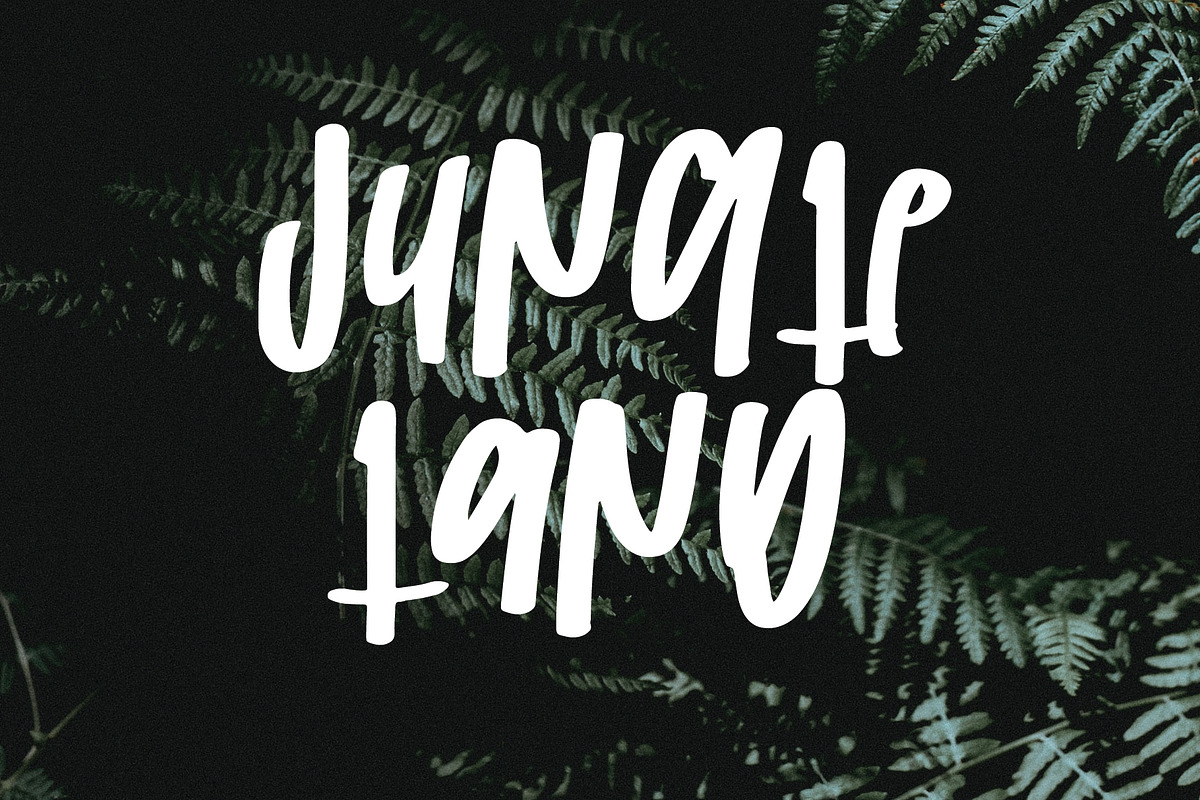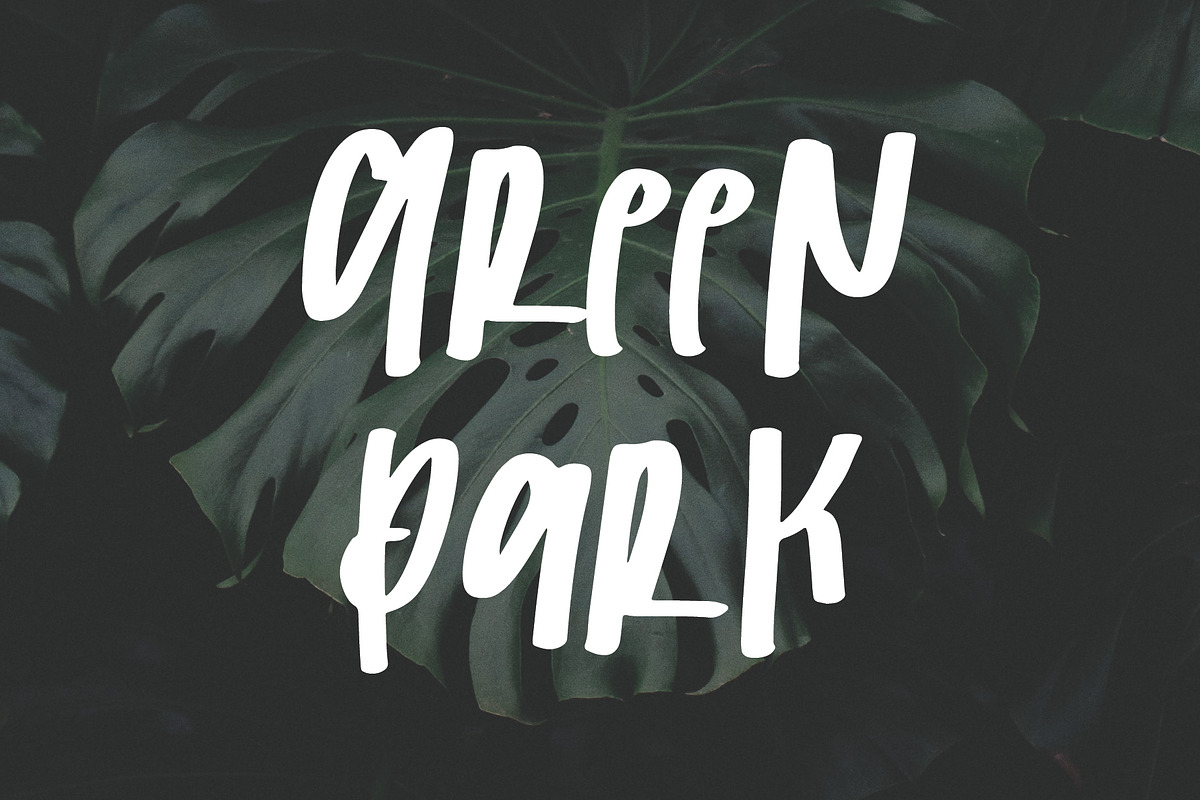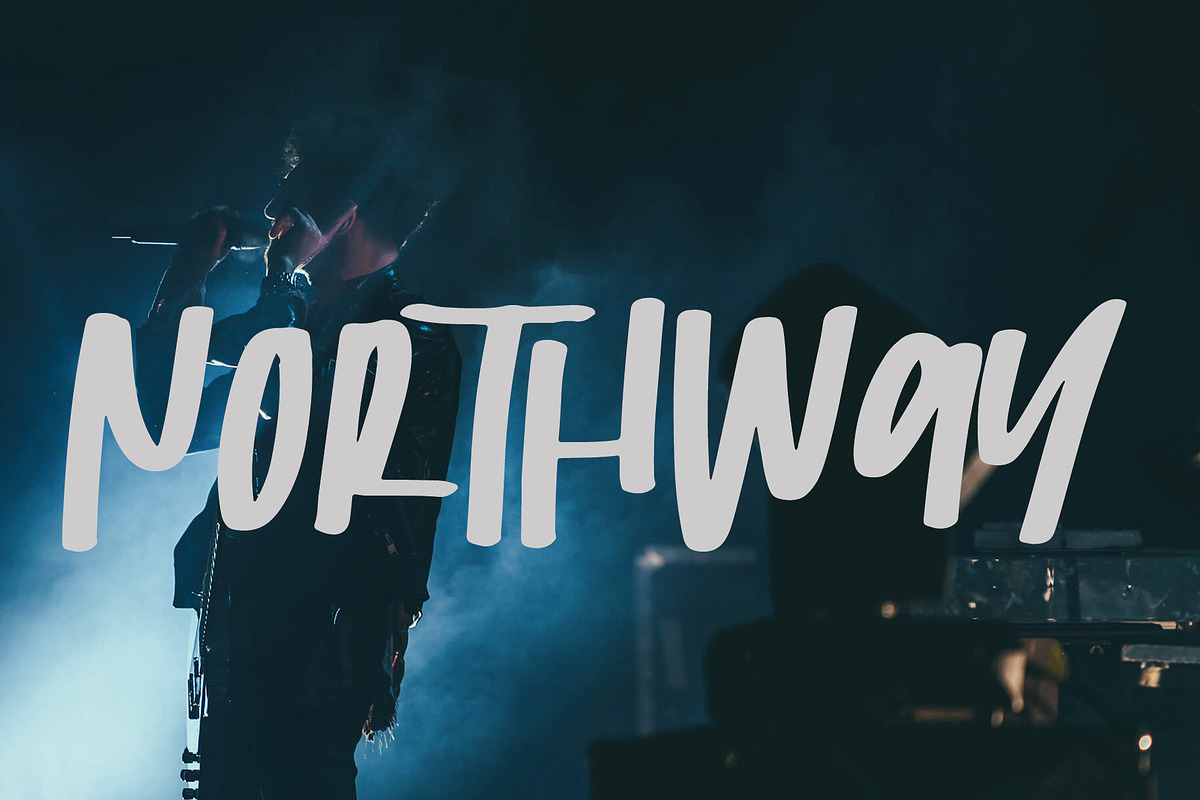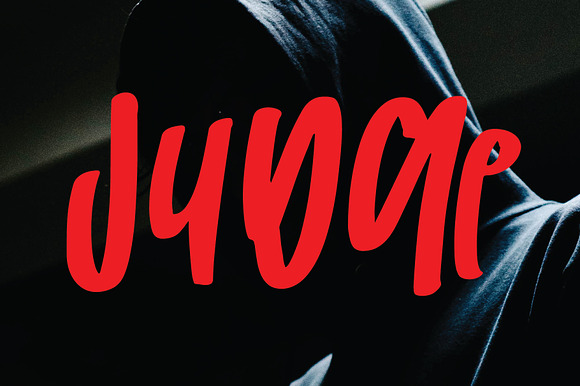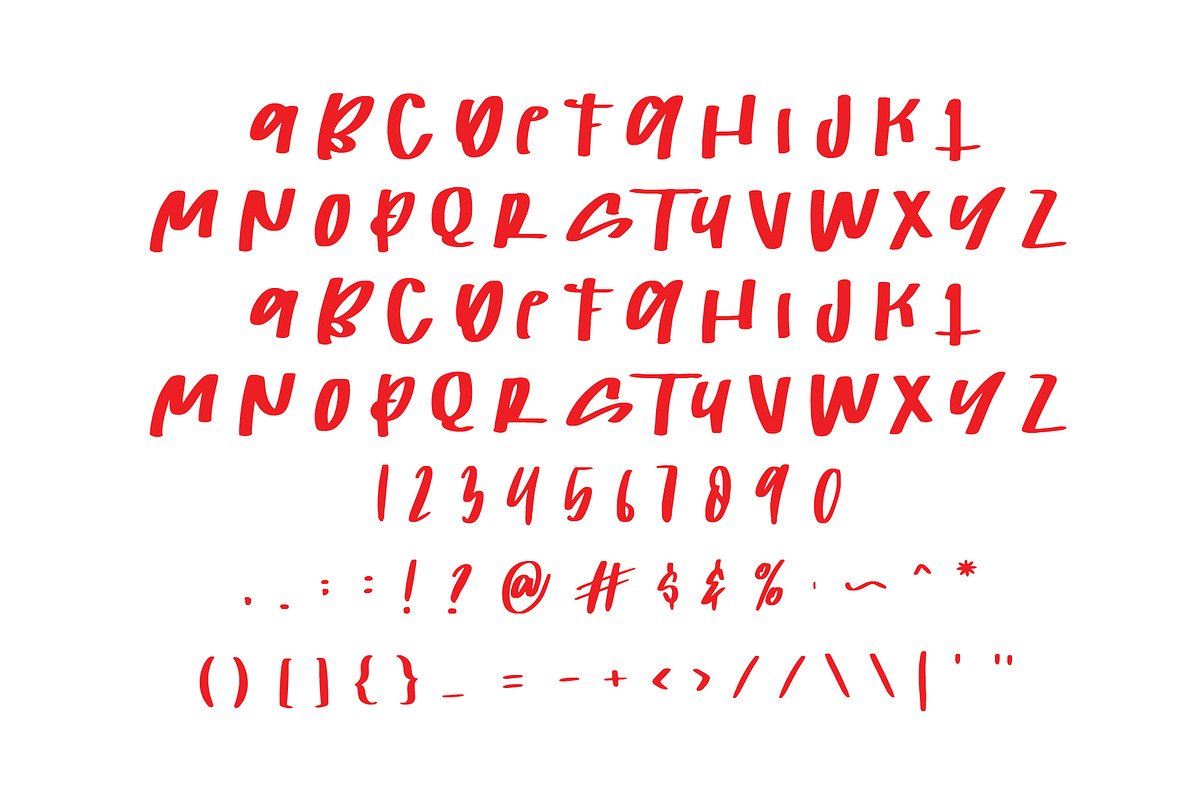
judge font
Judge Font by Goodigital13 is a font selected for branding, posters, packaging, typography.
Why judge font is worth a look
judge font by Mariyana fits naturally into Branding, posters, packaging, typography.